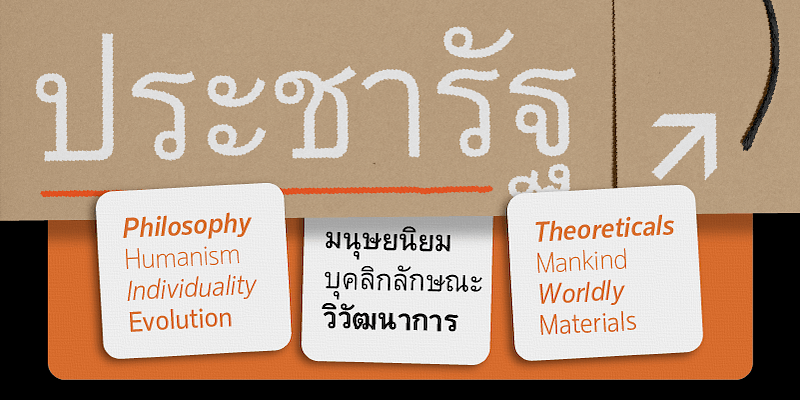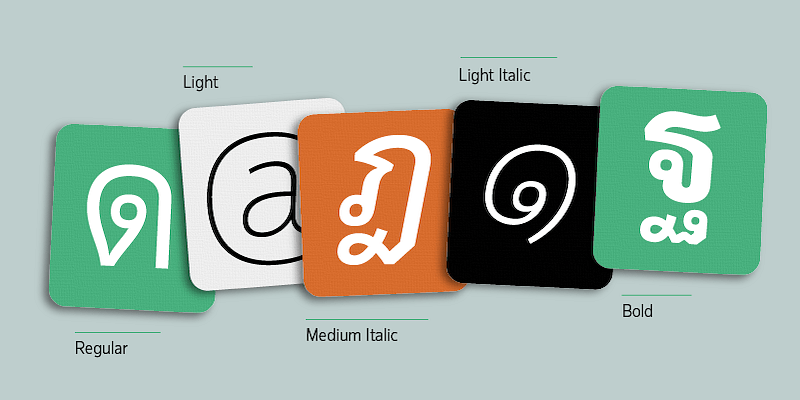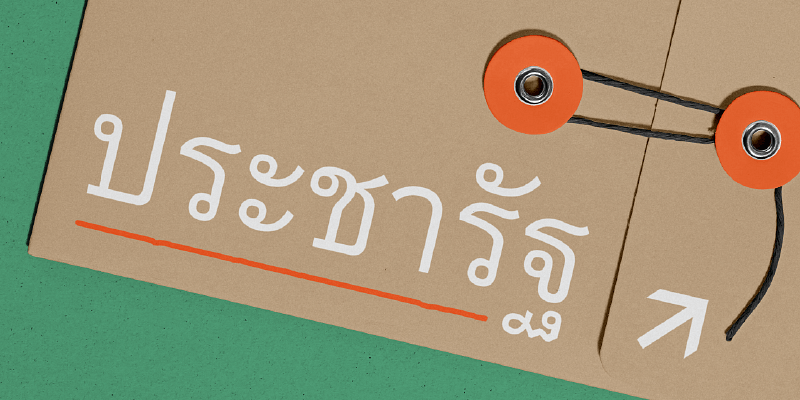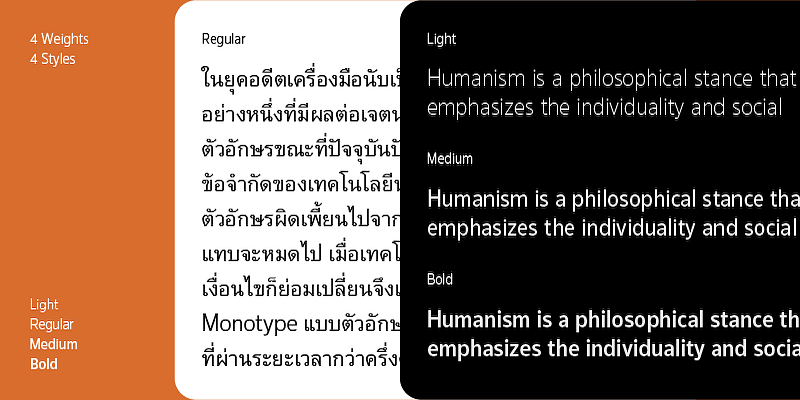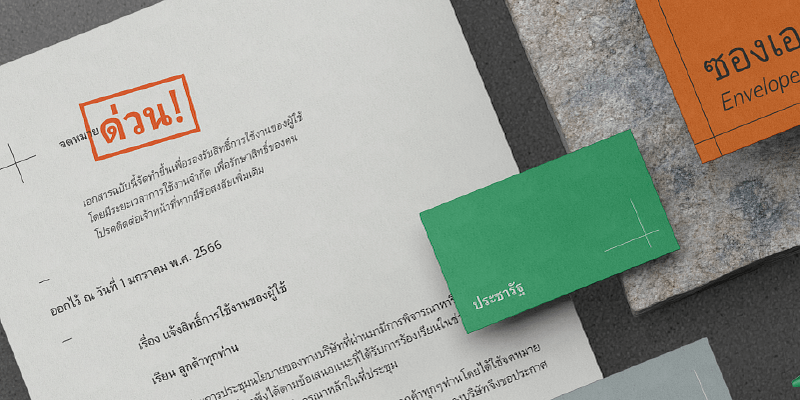
In the past, tools were considered one of the limitations that influenced the intentions of typefaces. However, nowadays, the problems of technological constraints that used to distort typefaces have almost disappeared as technology evolves and conditions change. This has led Monotype to redesign all the classic Thai typefaces, which have been developed for over half a century, to address the issues for contemporary usage.
- Taking into account the overall surface of the paper when arranging the printed characters, the new typefaces have been developed with a straighter alignment. Another improvement is the head loop of the characters, which is designed to be rectangular with rounded corners, allowing for more space inside the character’s head. All of these improvements are a result of Monotype’s enhancements and developments, now reintroduced under the name Pracharath, which covers the characteristics of contemporary design, thinking, usage, and tools.